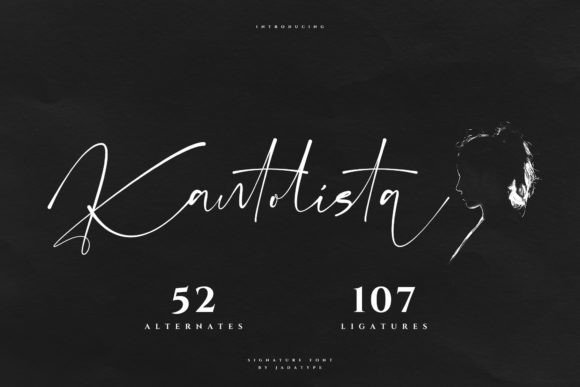
Behold the enchanting Kantolista Font, a captivating signature font brimming with elegance and grace. Step into a world of refined typography where expressive lines intertwine, creating an air of timeless beauty. Each letter dances across the page, evoking the romance of a handwritten note and the allure of a heartfelt message.
With its natural style, Kantolista Font invites you to unleash your creativity. Whether you're crafting heartfelt wedding invitations, designing elegant social media posts, or forging striking advertisements, this font will elevate your words into works of art. Its versatility knows no bounds, extending from distinctive logotypes to captivating branding, allowing you to make a statement that resonates.
Kantolista Font is the ultimate choice for those seeking to add a touch of sophistication and allure to their creations. Let your imagination soar as you explore the endless possibilities it offers. From the intimacy of wedding themes to the boldness of branding, Kantolista Font will transform your designs into captivating expressions of your unique style.
Embrace the exquisite beauty of Kantolista Font and let its timeless charm enhance your creative endeavors. With its effortless elegance and universal appeal, this font will undoubtedly leave an indelible impression on all who encounter it.